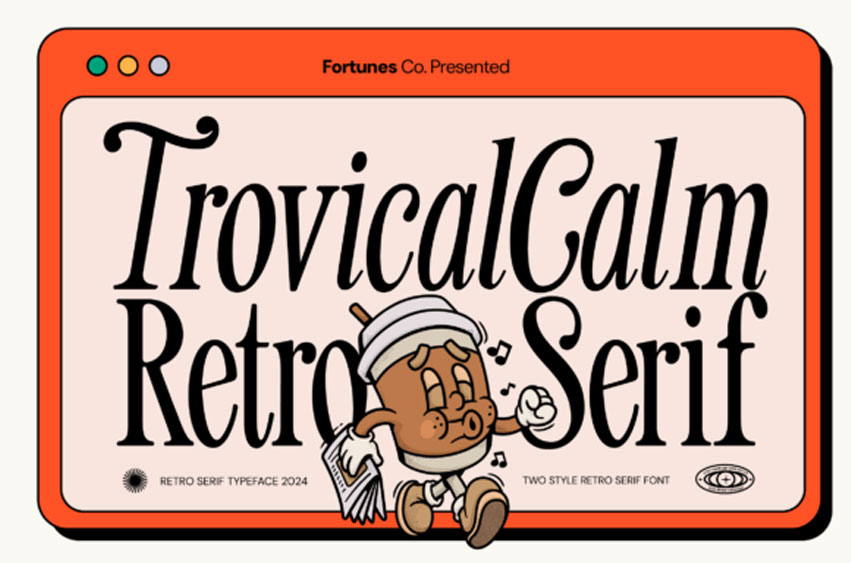
Tropical Calm Font
Tropical Calm Font is a sans-serif font for advertising with a retro theme that strikes a perfect balance between modern minimalism and vintage charm. Clean and straightforward, its streamlined design enhances readability while exuding a sense of timelessness. The absence of decorative serifs allows the focus to remain on bold, impactful messaging, ideal for catching attention in advertisements.
When paired with retro-inspired color schemes and design elements, this font evokes the aesthetic of mid-century posters and print ads. It channels the sleek, no-nonsense approach of classic commercial design, making it versatile for various applications, from branding to event promotions, where clarity and nostalgia are key.